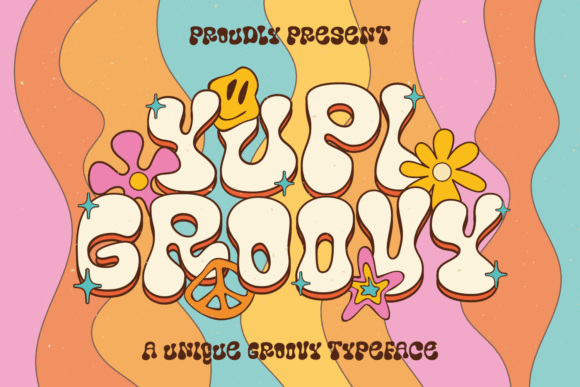
Step into a realm where retro vibes and modern aesthetics collide, introducing Yupi Groovy Font, the ultimate display font that captures the essence of funky and playful design. This font is more than just a collection of glyphs; it's a testament to the enduring power of nostalgia, reimagined through a contemporary lens.
Visualize the perfect fusion of flowing strokes, dynamic curves, and exaggerated forms, dancing together in perfect harmony. Yupi Groovy Font is the epitome of fluidity, a symphony of lines that twist and turn with a playful rhythm, evoking the spirit of a groovy dance move. Each character pulsates with energy, as if captured in mid-motion, ready to infuse your designs with a contagious sense of fun.
Indulge in the versatility of Yupi Groovy Font, the perfect choice for projects that crave a touch of funk and personality. Whether you're designing album covers that exude a retro charm or creating posters that demand attention, this font delivers. Its infectious energy shines through in advertisements, branding materials, and any design that yearns for a dash of excitement and playfulness.
With Yupi Groovy Font, you're not just downloading a font; you're embracing a world of creative possibilities. It's the perfect companion for designers seeking fonts for retro design, who want to evoke a sense of nostalgia while maintaining a modern edge. Let your imagination run wild as you explore the endless applications of this remarkable font.
So, dive into the world of Yupi Groovy Font and let your designs groove to the rhythm of its playful energy. Embrace the retro charm, revel in the contemporary style, and embark on a creative journey where fun and personality reign supreme.